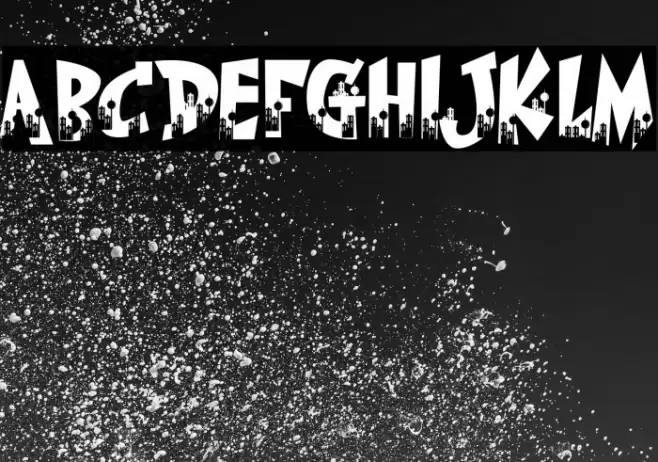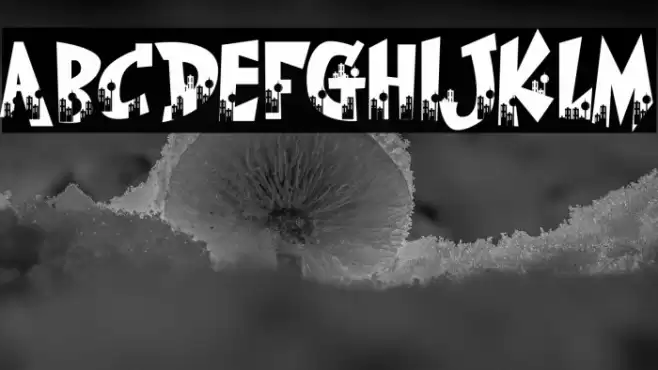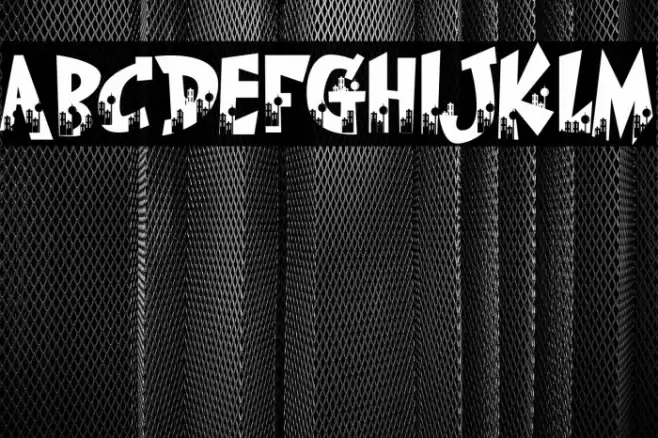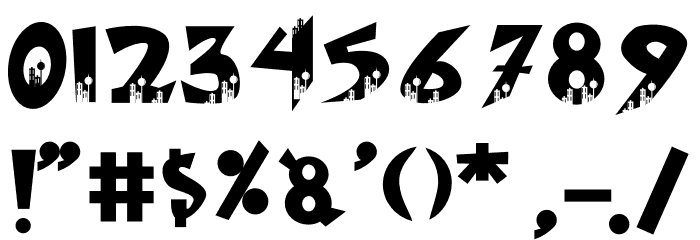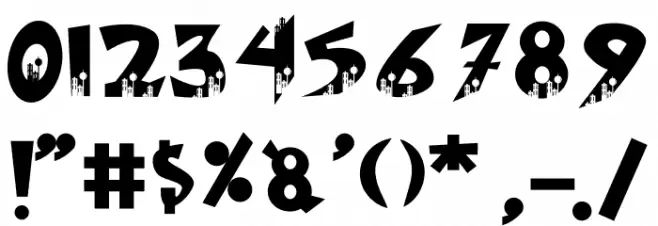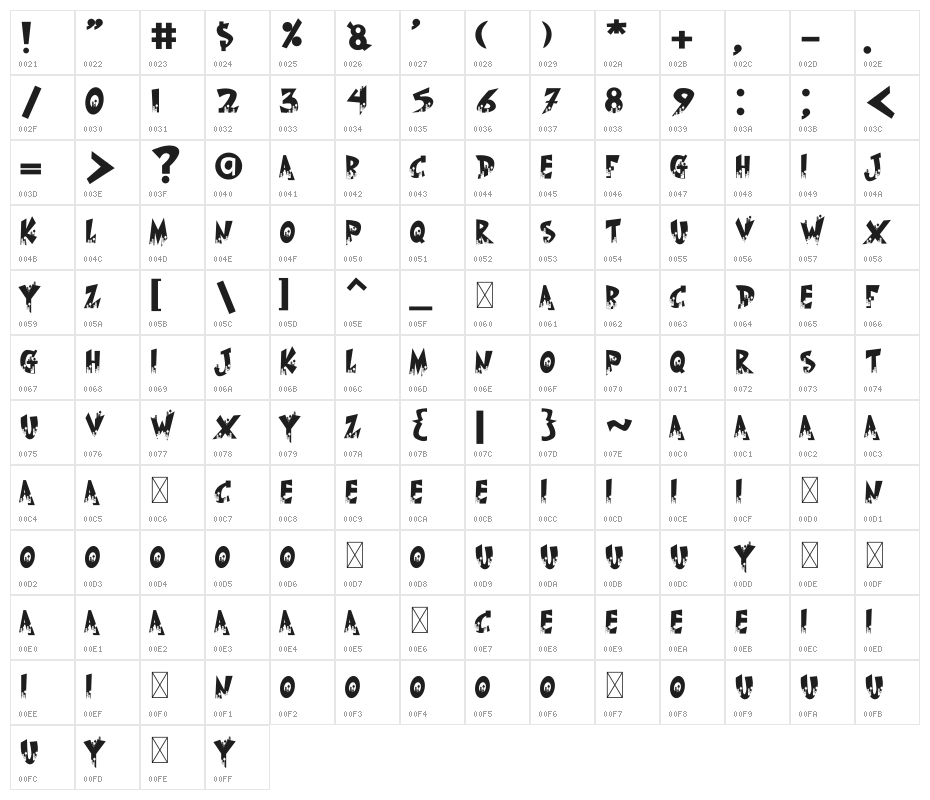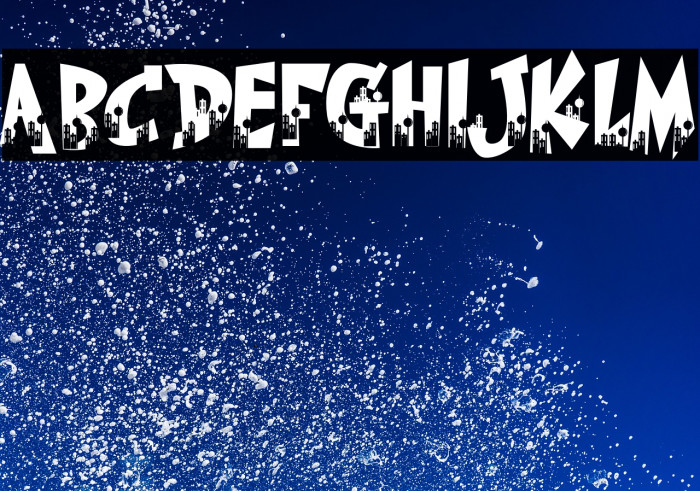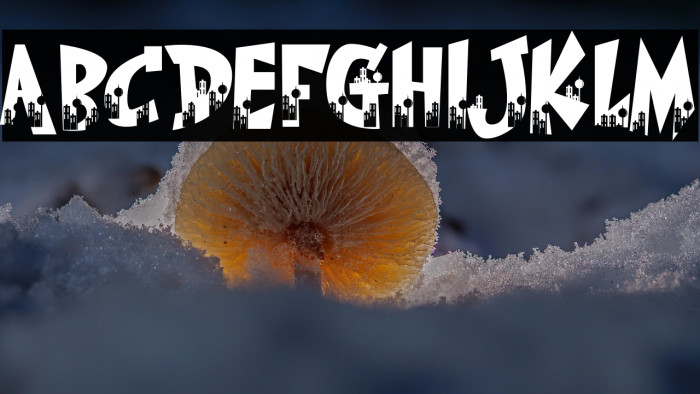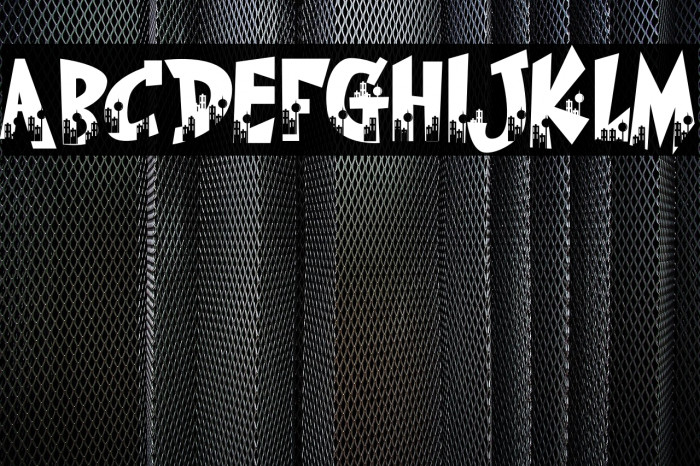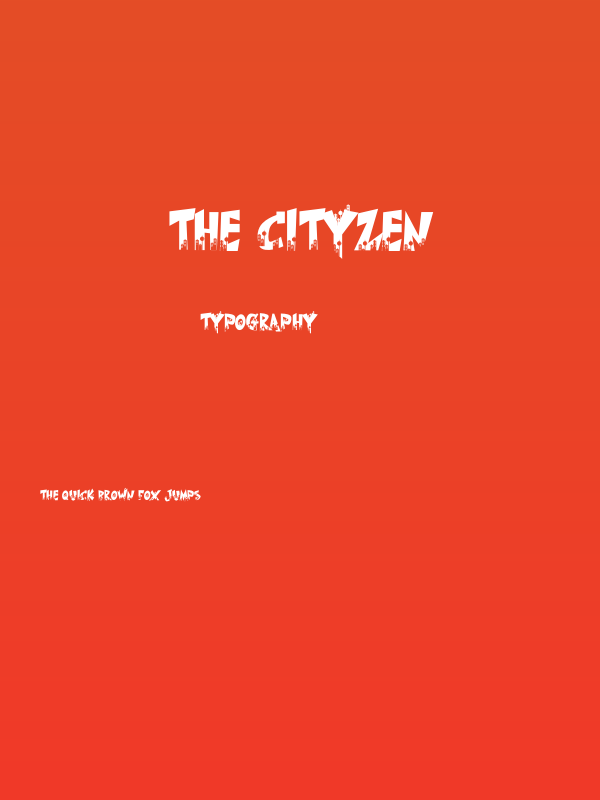
The Cityzen Font
The Cityzen Description
This font features a bold and dynamic design with a cityscape motif integrated into each letter. The uppercase and lowercase letters are stylized with sharp, angular lines that evoke a sense of urban architecture. The numbers and special characters maintain this theme, providing a cohesive look across all glyphs. The font's unique design elements make it stand out, ideal for projects that require a modern and edgy aesthetic. The character spacing is relatively tight, enhancing the compact and impactful appearance of the text.
A bold, cityscape-themed font with angular, architectural lines from Cartoon fonts.
- Font: The Cityzen
- Proposed Projects: Ideal for urban-themed posters, event flyers, branding for city-based businesses, and modern graphic design projects.
- Character Spacing: Tight
- Contrast: High